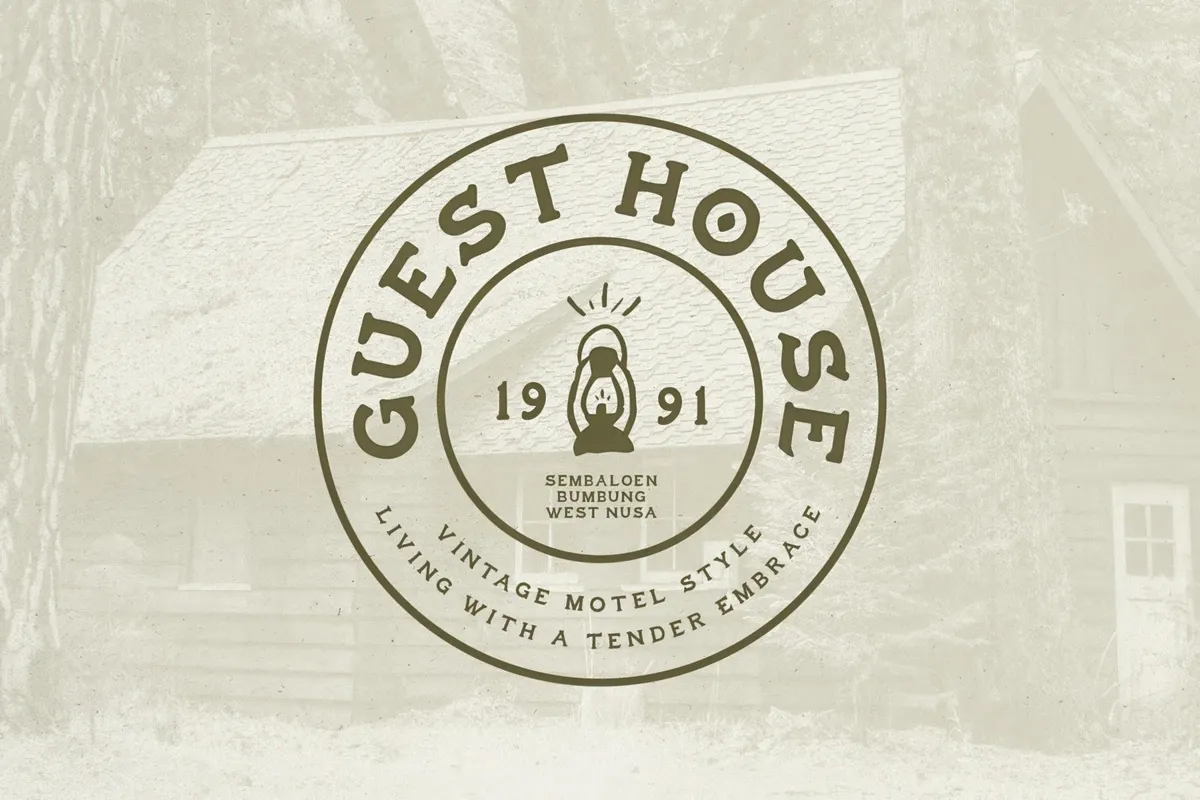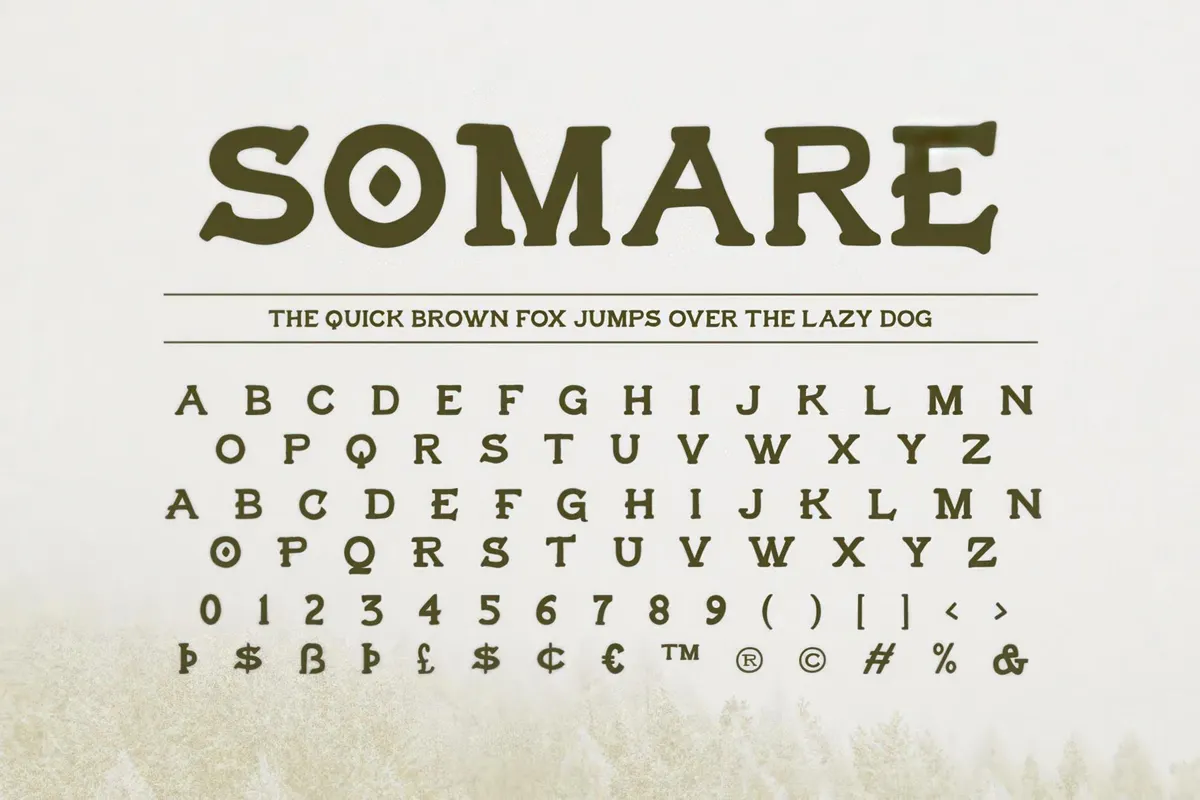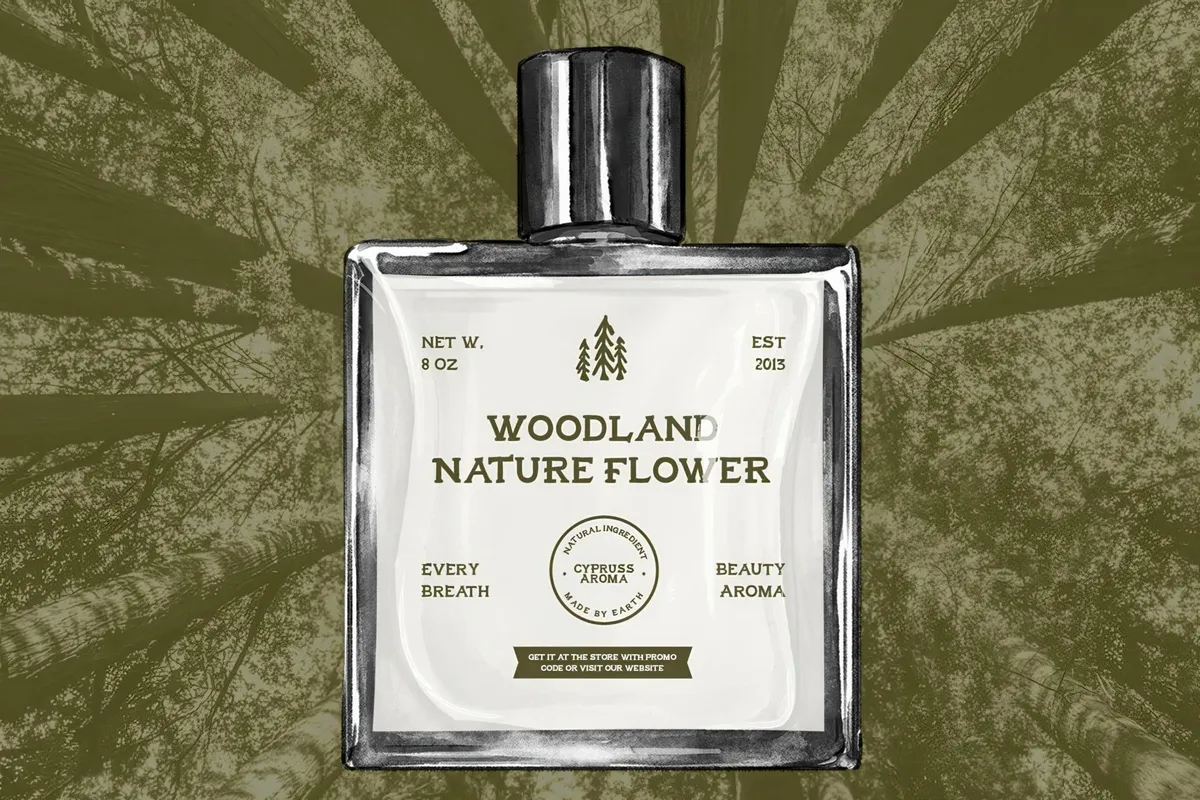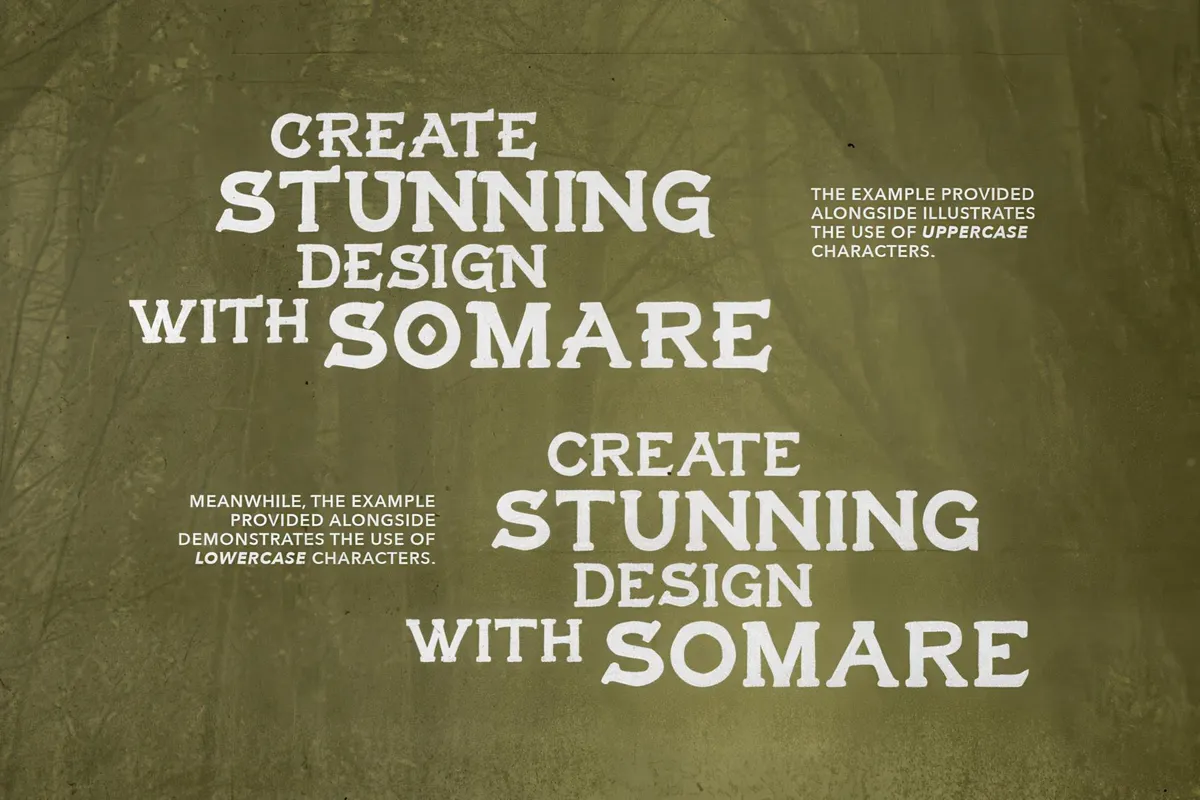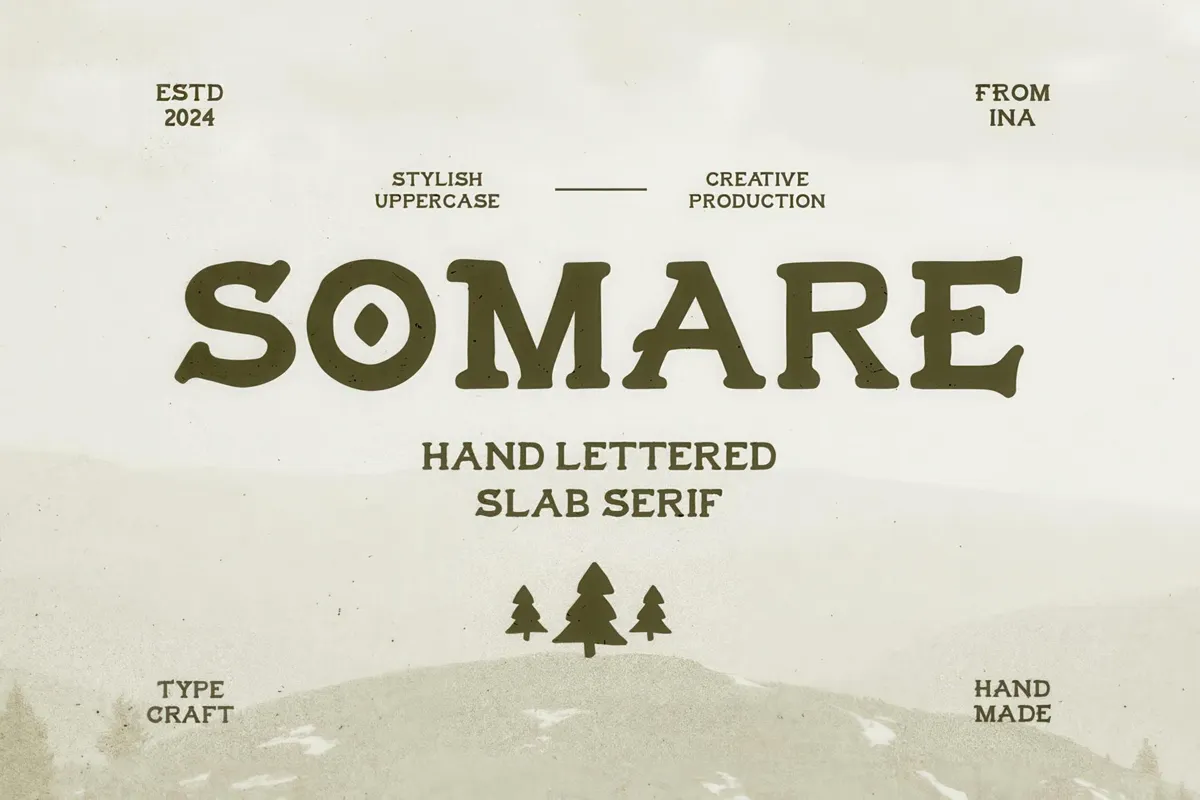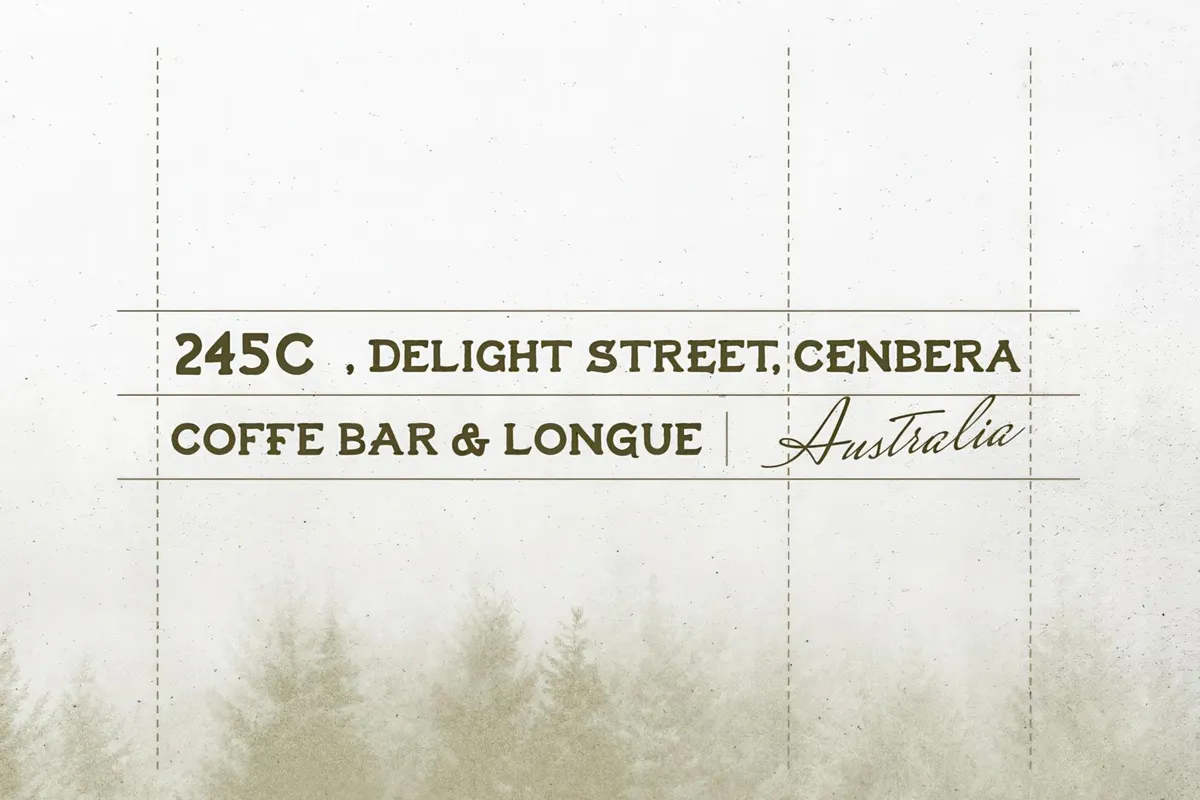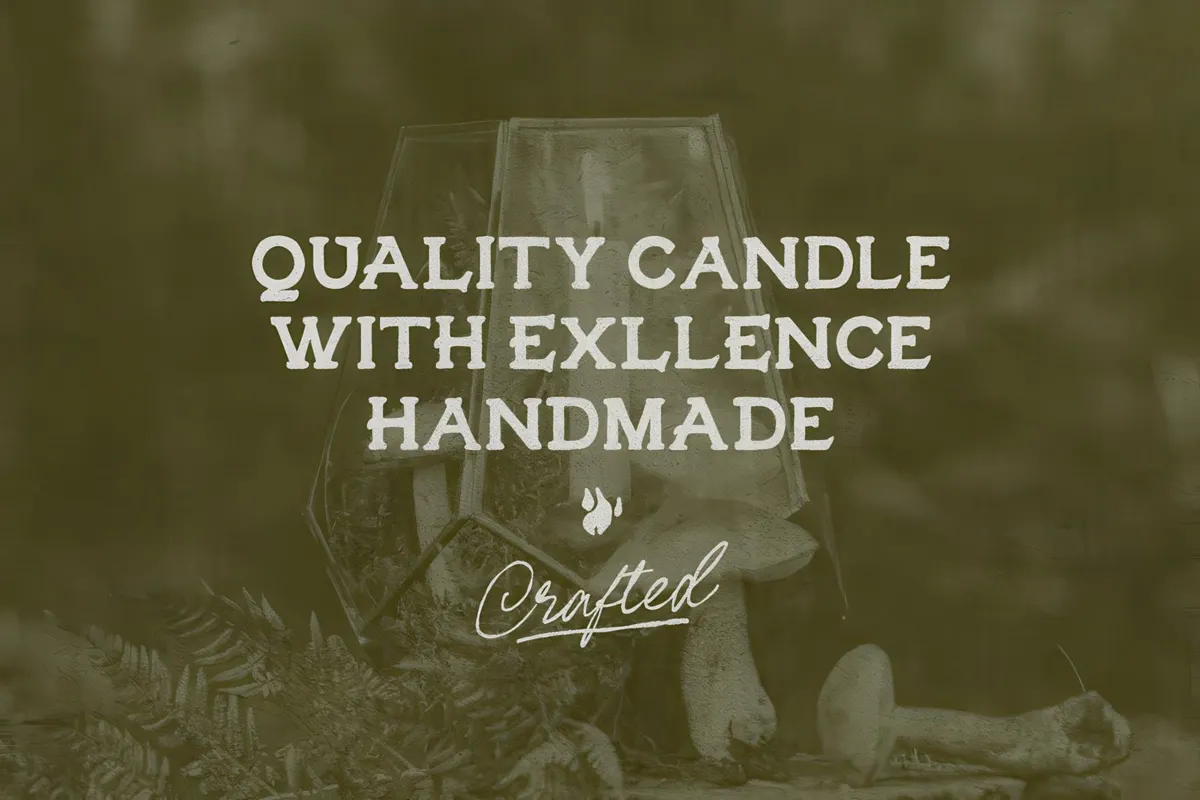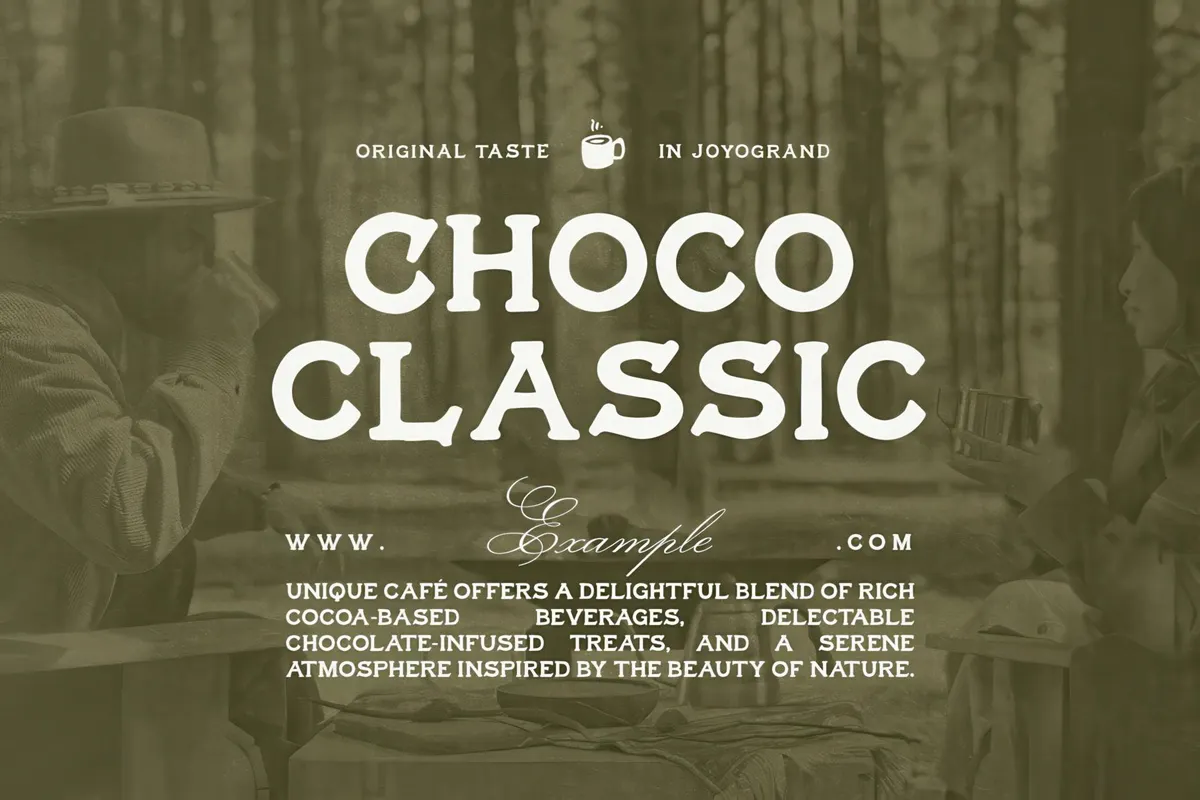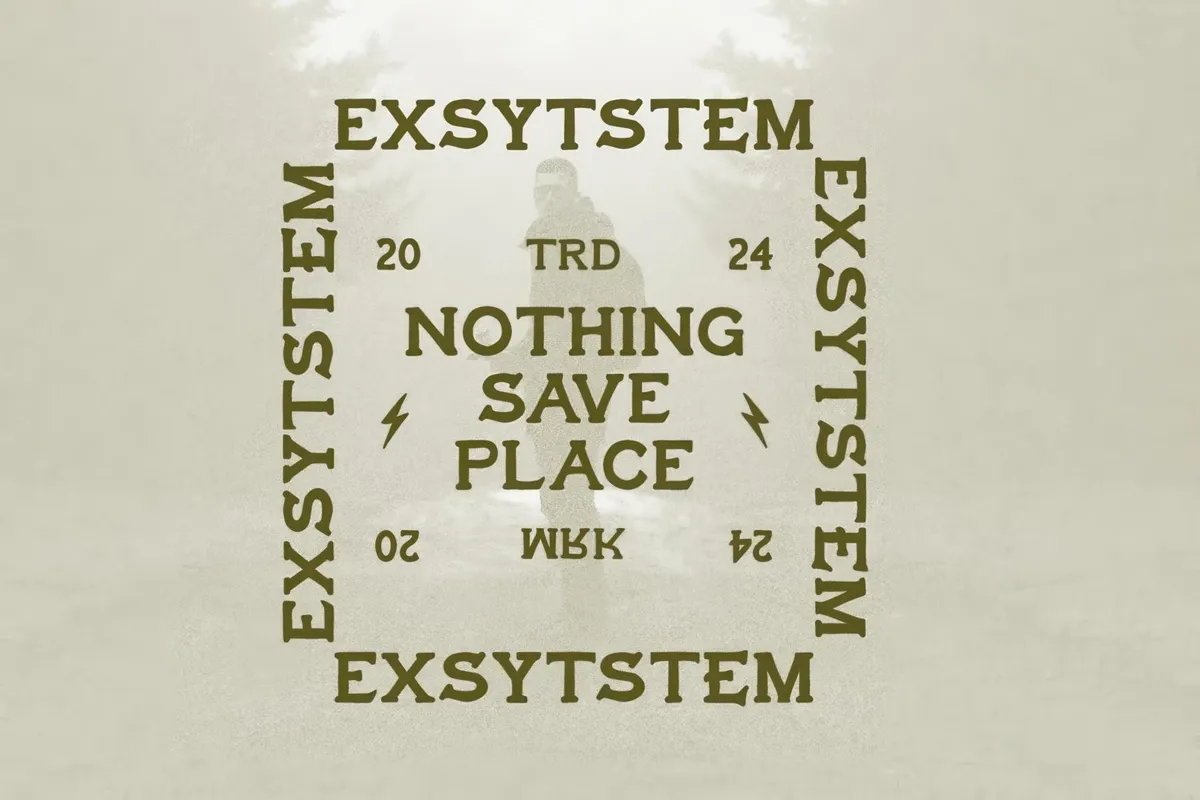
Somare — Hand-Lettered Slab Serif
Somare
Somare font feels as rugged as a lumberjack's flannel and as cool as a vintage coffee shop. With its rustic, hand-crafted letterforms and rebellious hipster charm, Somare brings a warm, organic aesthetic. It's ideal for everything from artisanal packaging and boutique branding to outdoor adventure gear and indie zines. Whether designing for a rustic mountain lodge or a craft brewery, you get the kraft vibe captured inside an **uppercase set, numbers, international characters, and symbols. **